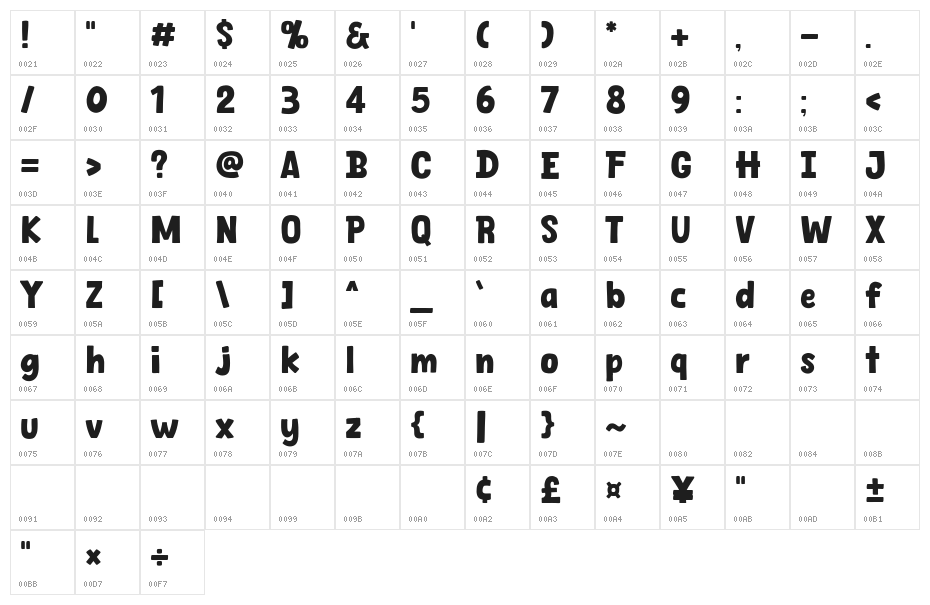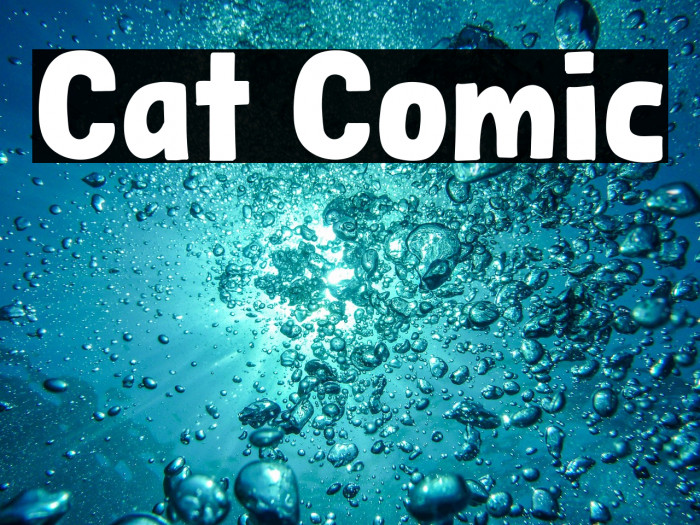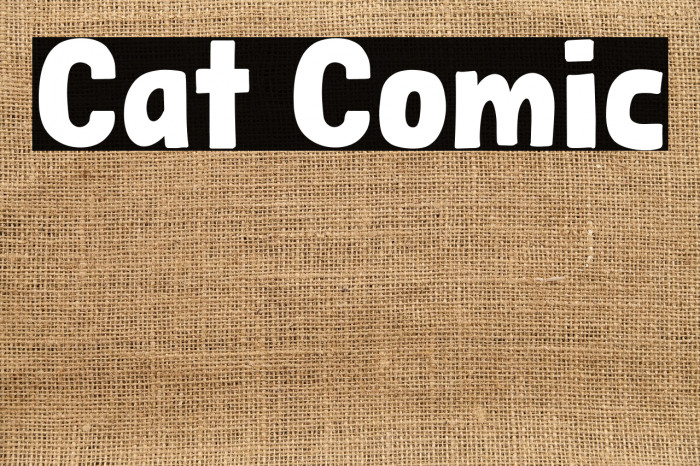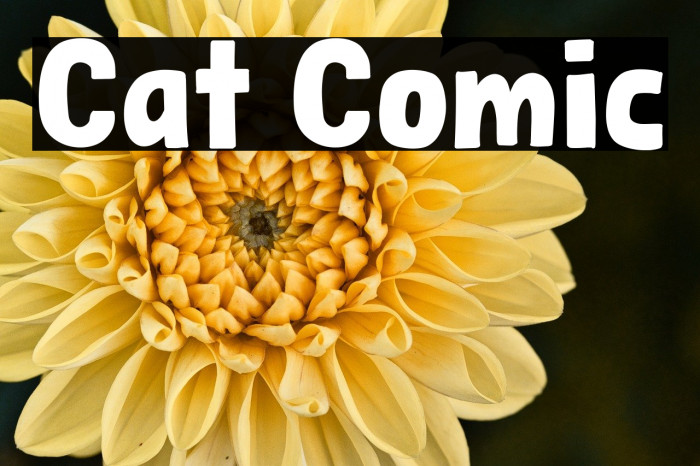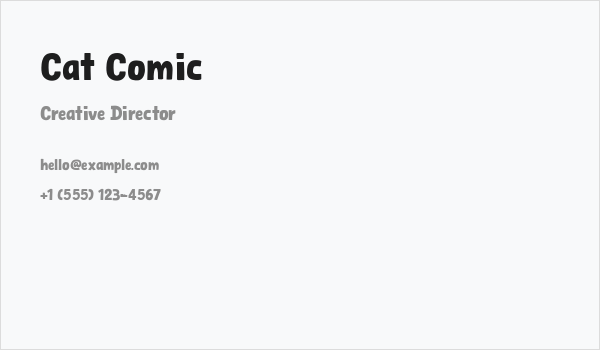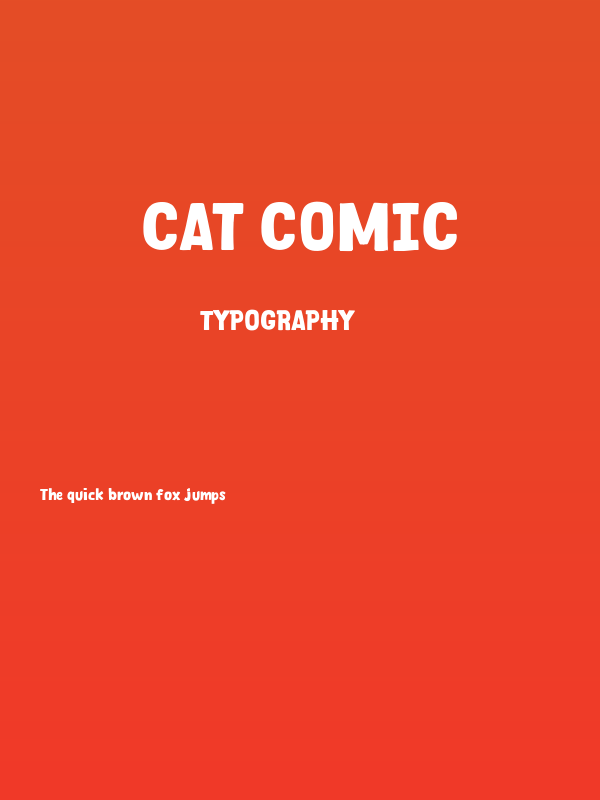
Cat Comic Font
Cat Comic Description
This playful and bold font features a whimsical and cartoonish style, making it ideal for projects that require a fun and informal touch. The characters are rounded and slightly irregular, giving them a hand-drawn appearance that adds to their charm. The uppercase and lowercase letters maintain a consistent weight, while the numbers and special characters are designed to match the overall playful aesthetic. This font is perfect for children's books, comic strips, and any creative project that aims to capture a lighthearted and joyful tone.
| Overall Style | Playful, Cartoonish |
| Proposed Projects | Children's books, comic strips, playful branding, and creative posters. |